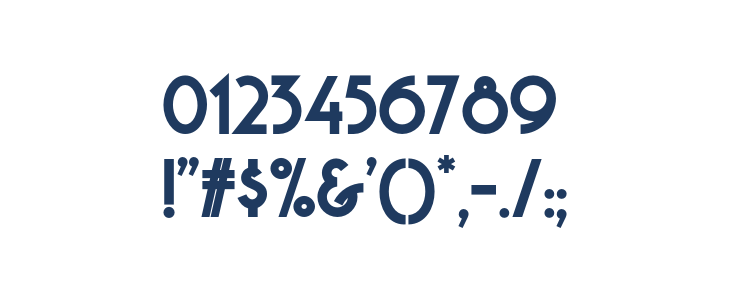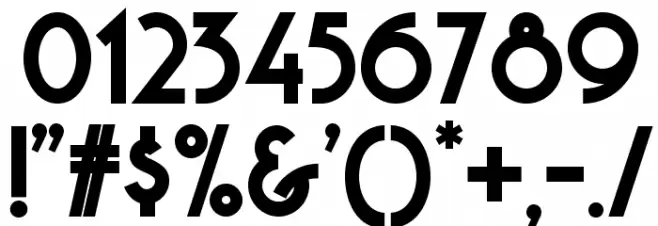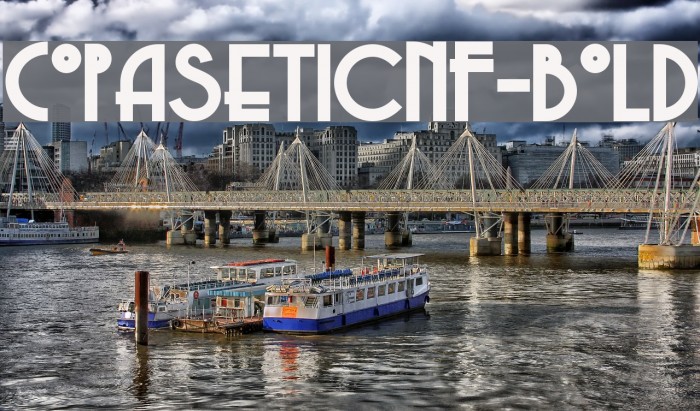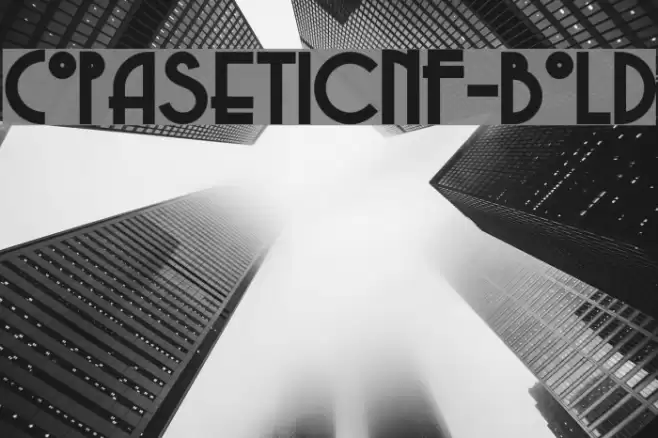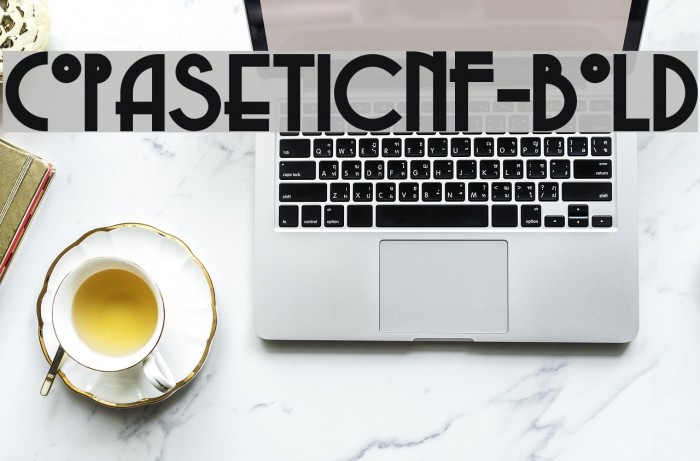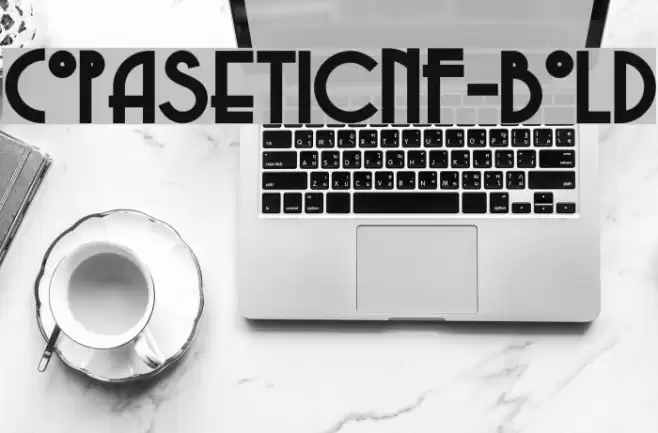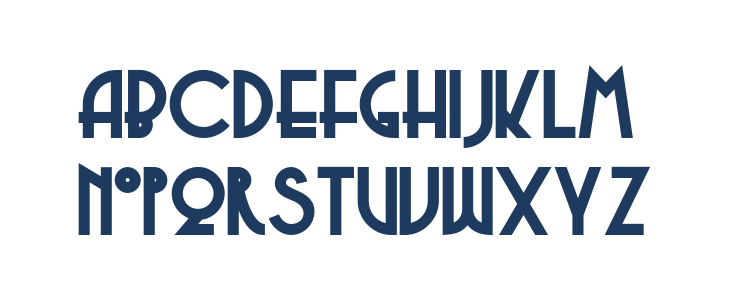
CopaseticNF-Bold Font
CopaseticNF-Bold Description
This bold, geometric typeface features a unique blend of Art Deco and modern design elements. Its characters are constructed with strong, straight lines and sharp angles, creating a sense of elegance and sophistication. The uppercase letters are particularly striking, with their tall, narrow forms and distinctive shapes. The font maintains a consistent weight throughout, ensuring readability while adding a touch of flair with its decorative elements. The numerals and special characters complement the overall style, making it versatile for various design applications.